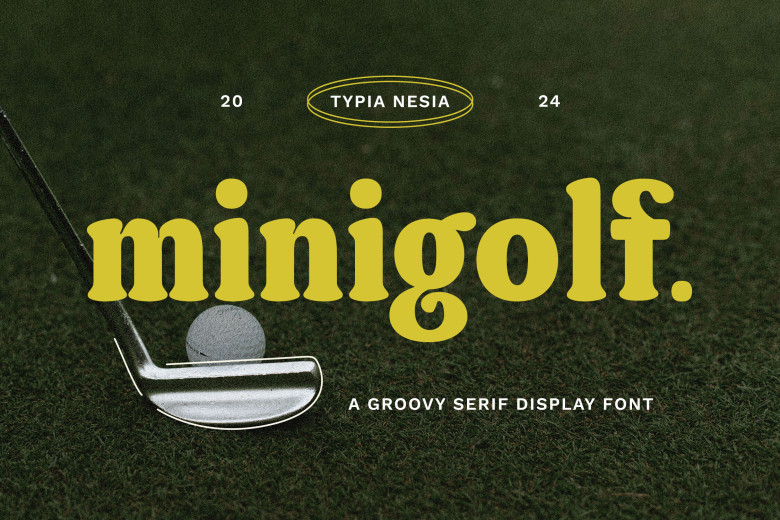
Minigolf Font
Minigolf is a stylish serif font with a contemporary edge. Minigolf features clean lines and well-balanced proportions. The former projects a sophisticated appearance; the latter gives it On the one hand, Minigolf is ideal for branding and editorial design–any endeavor requiring a touch of elegance at all–Minigolf brings that refined look while still remaining totally readable.
Minigolf Serif Font